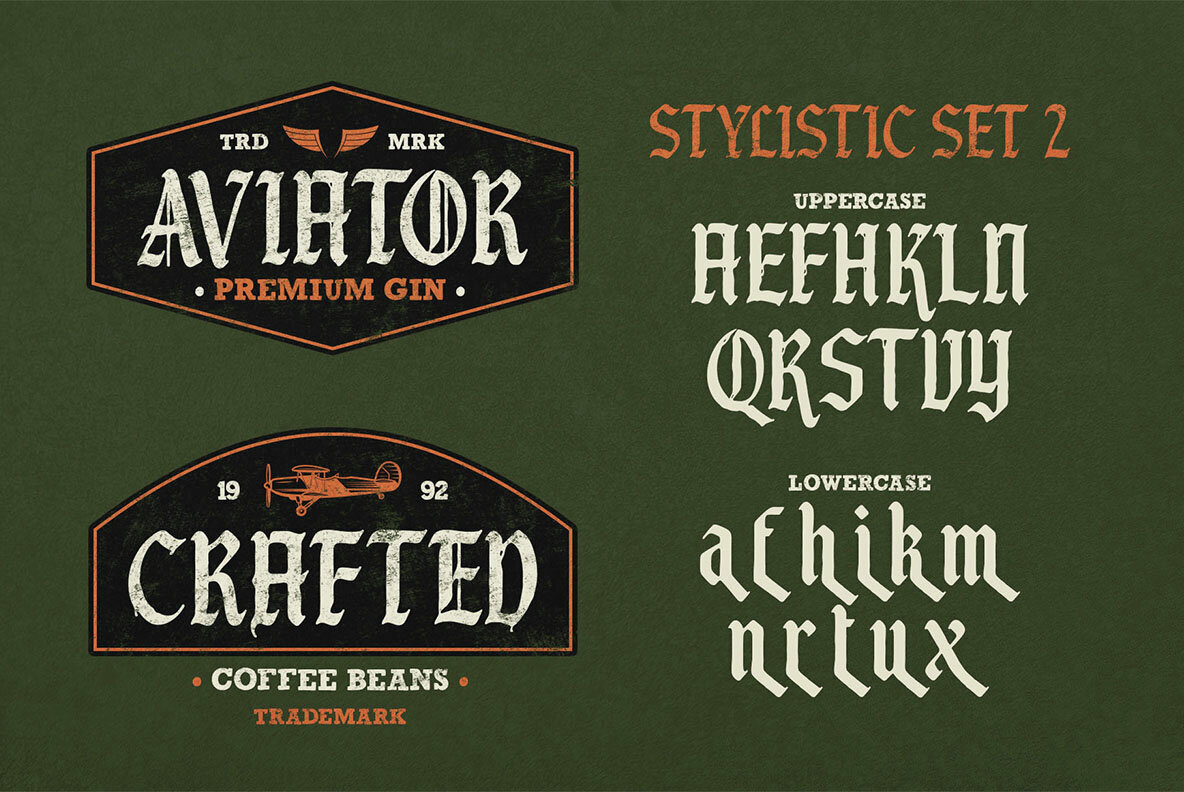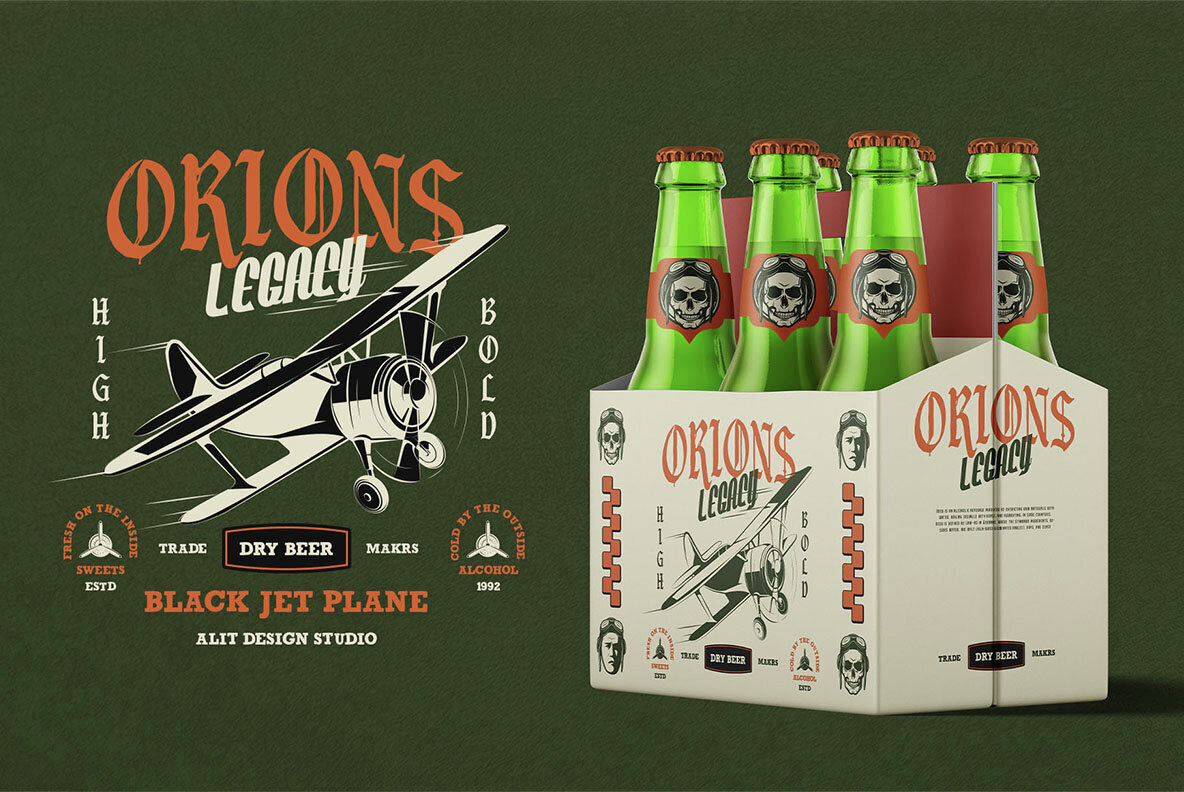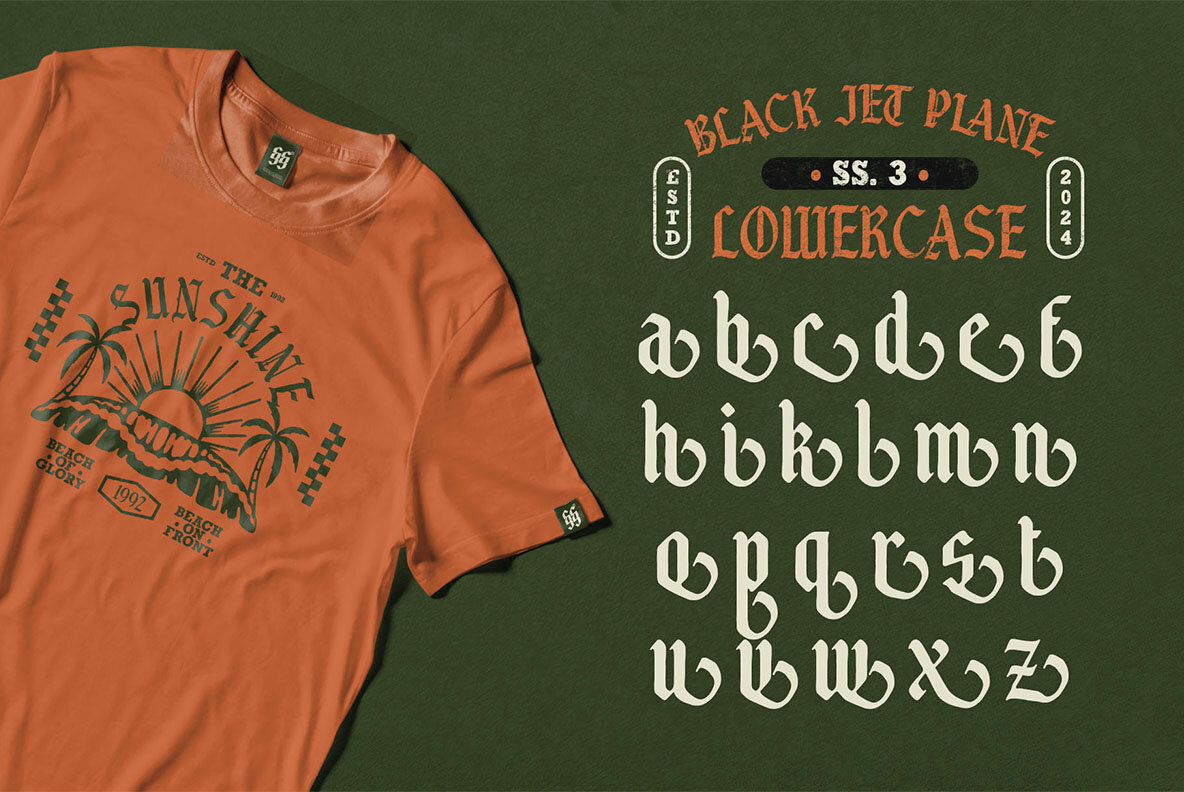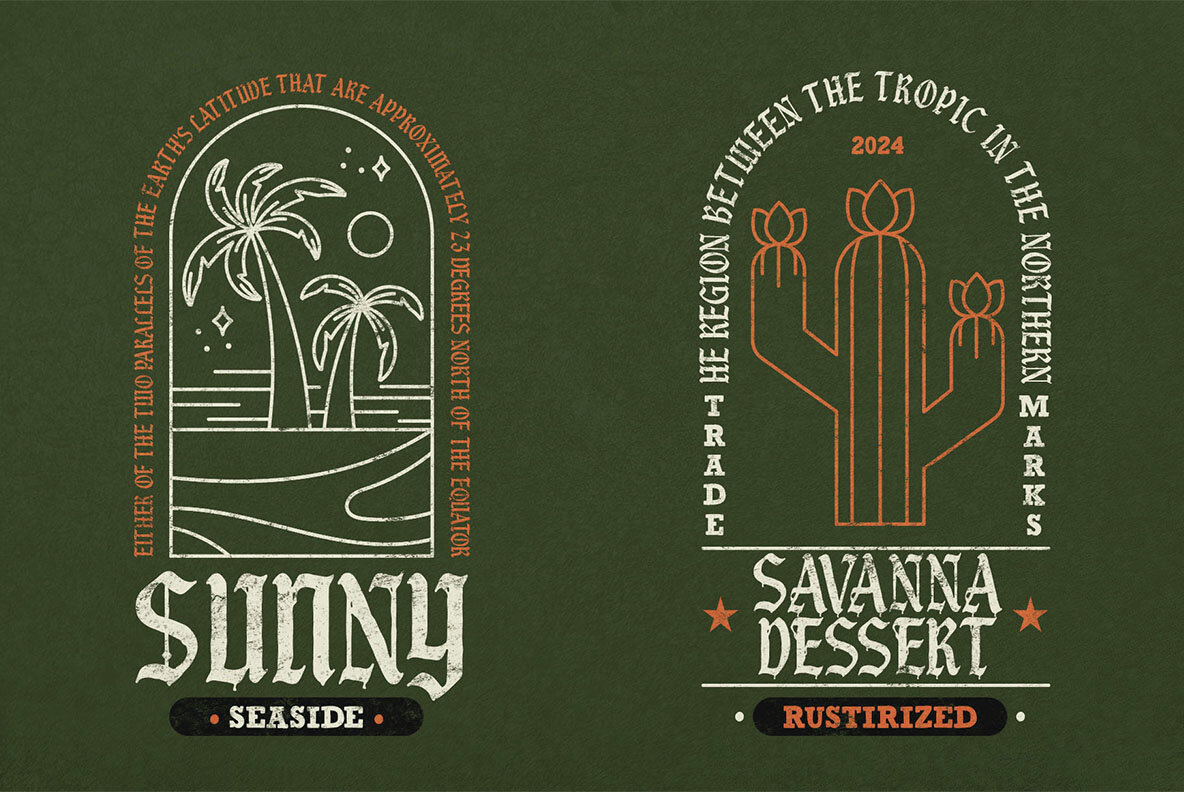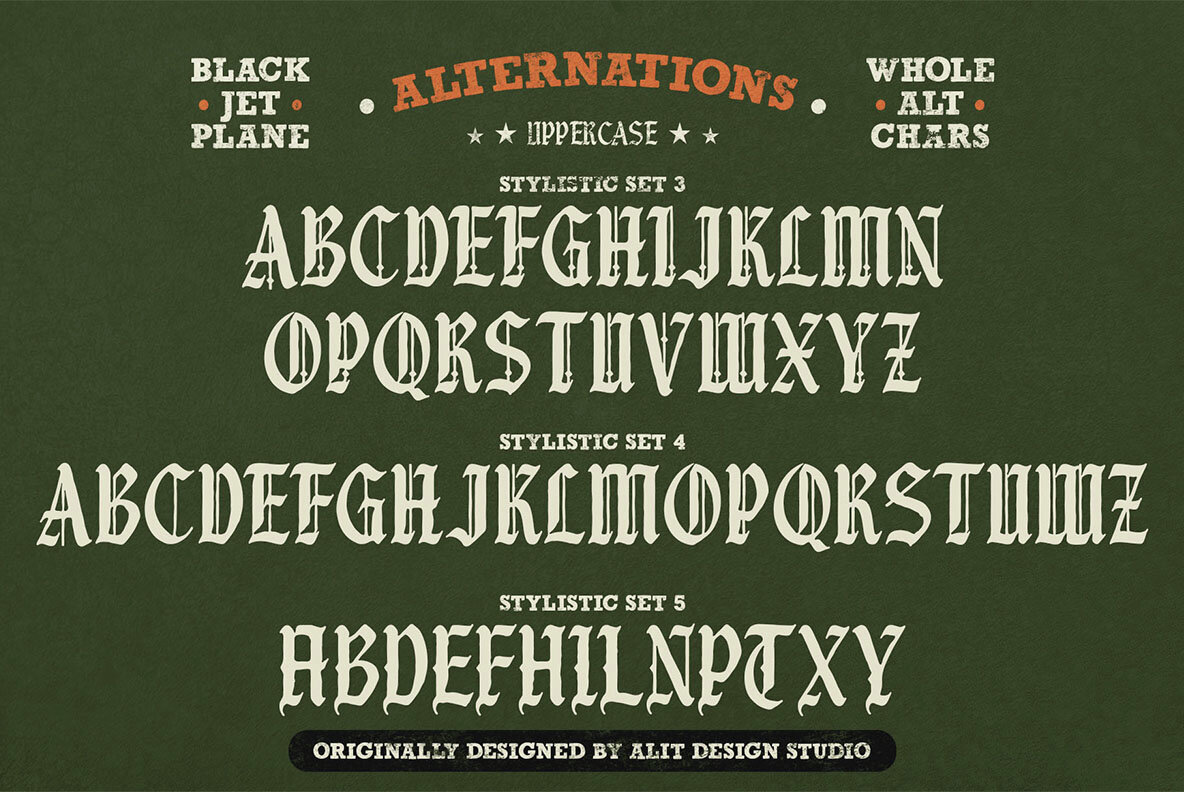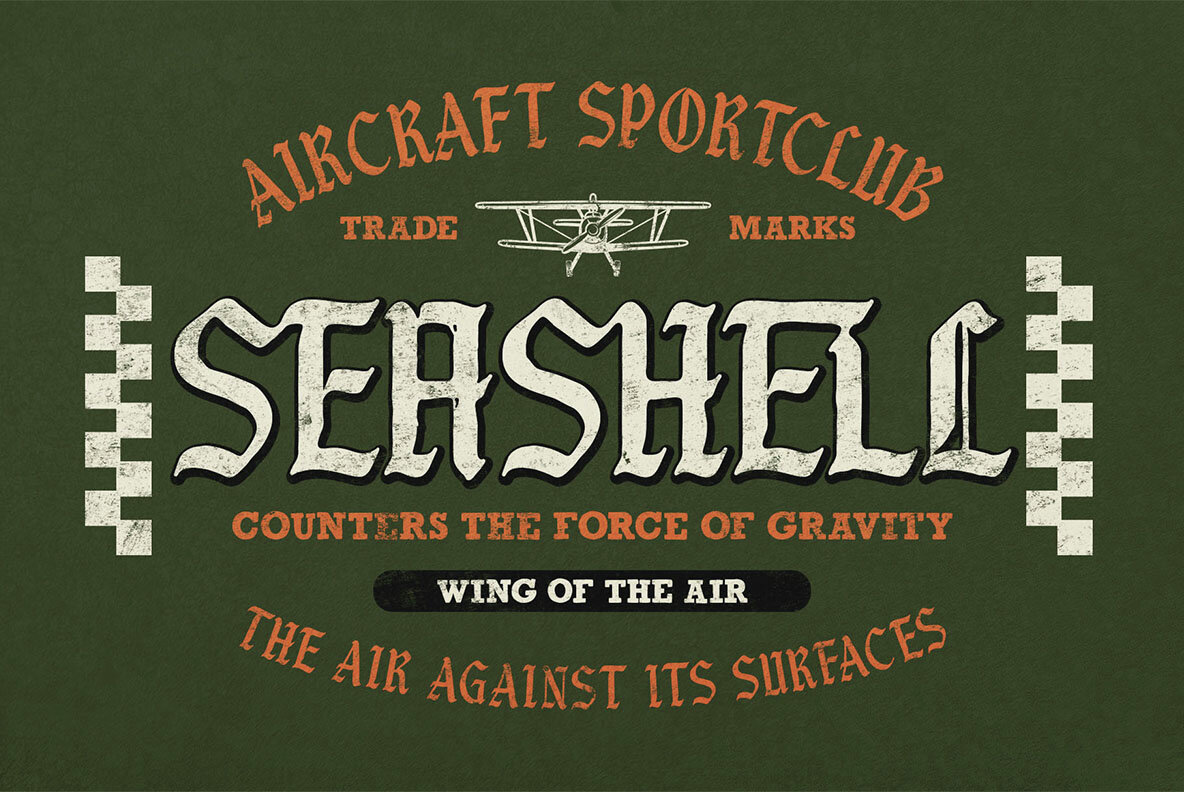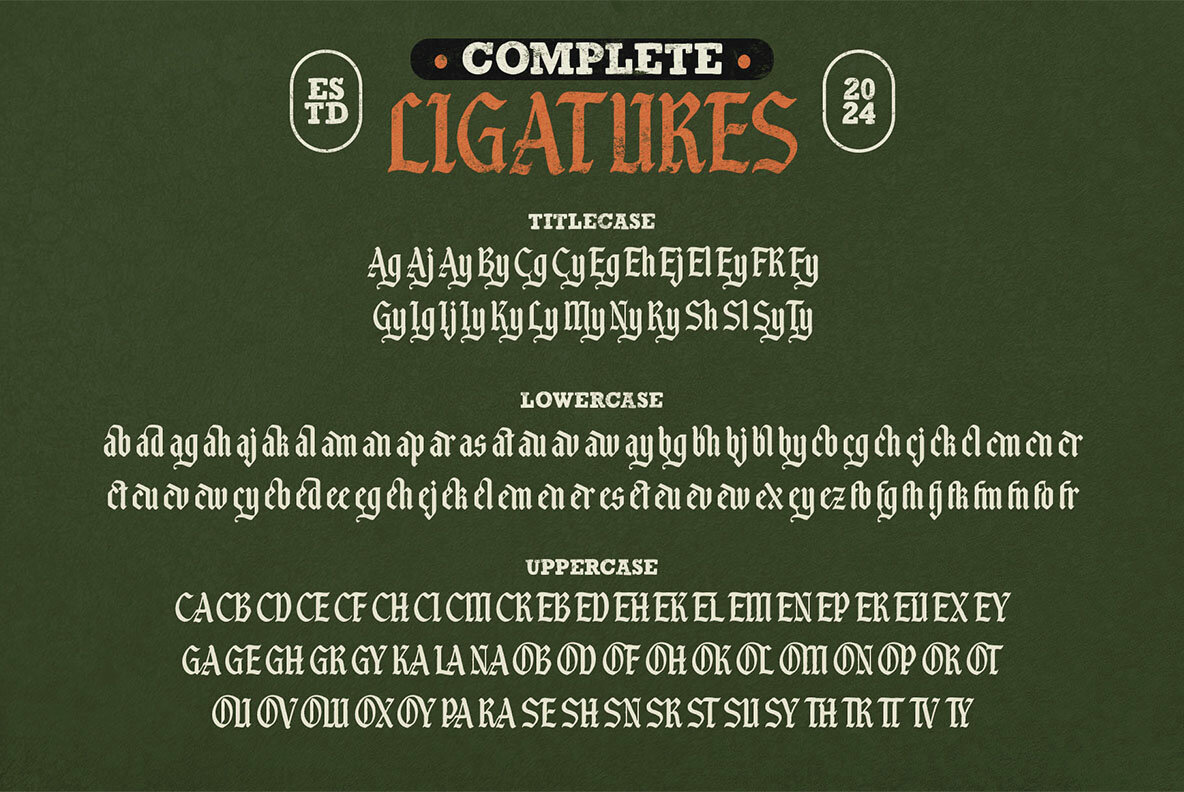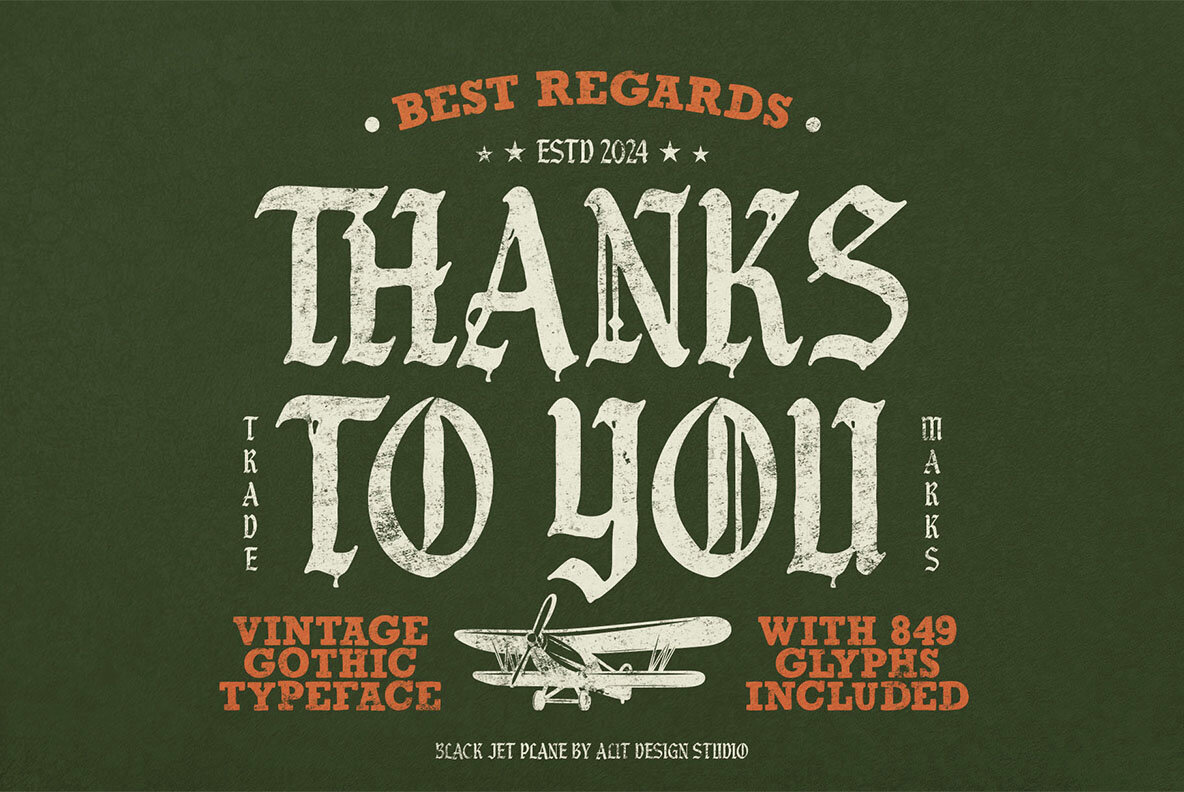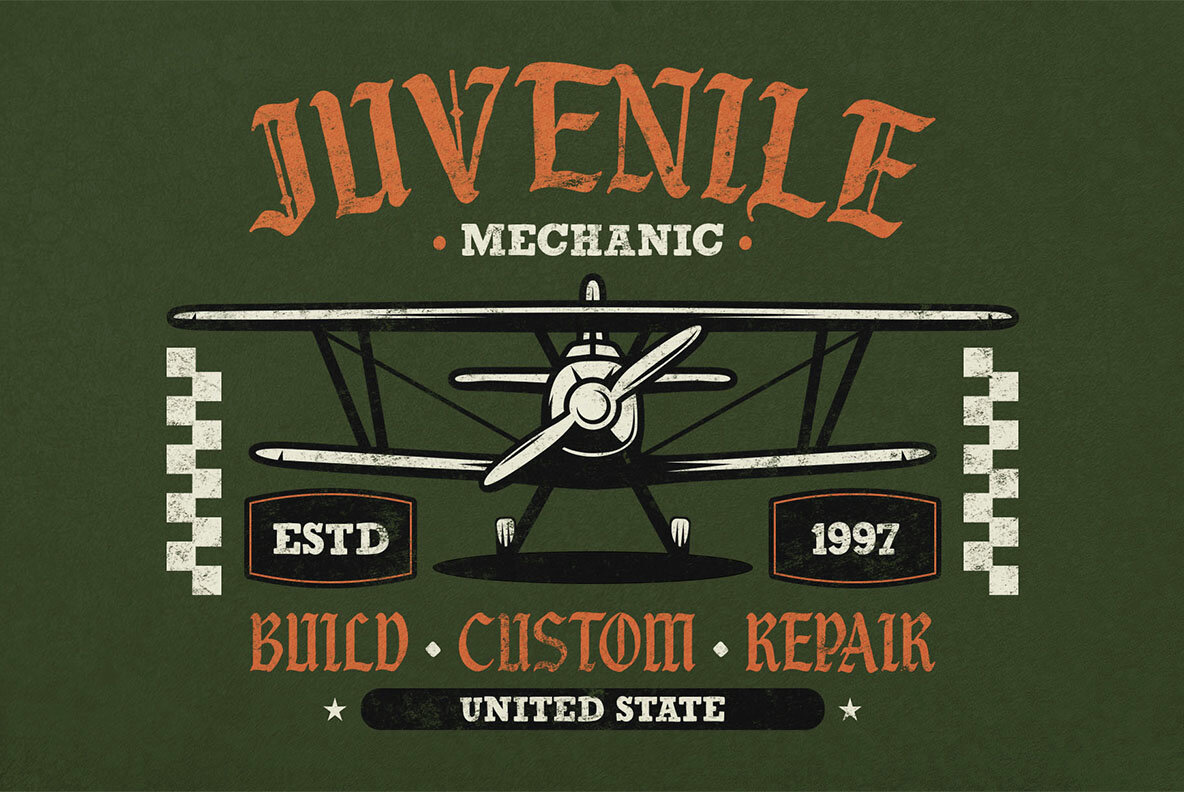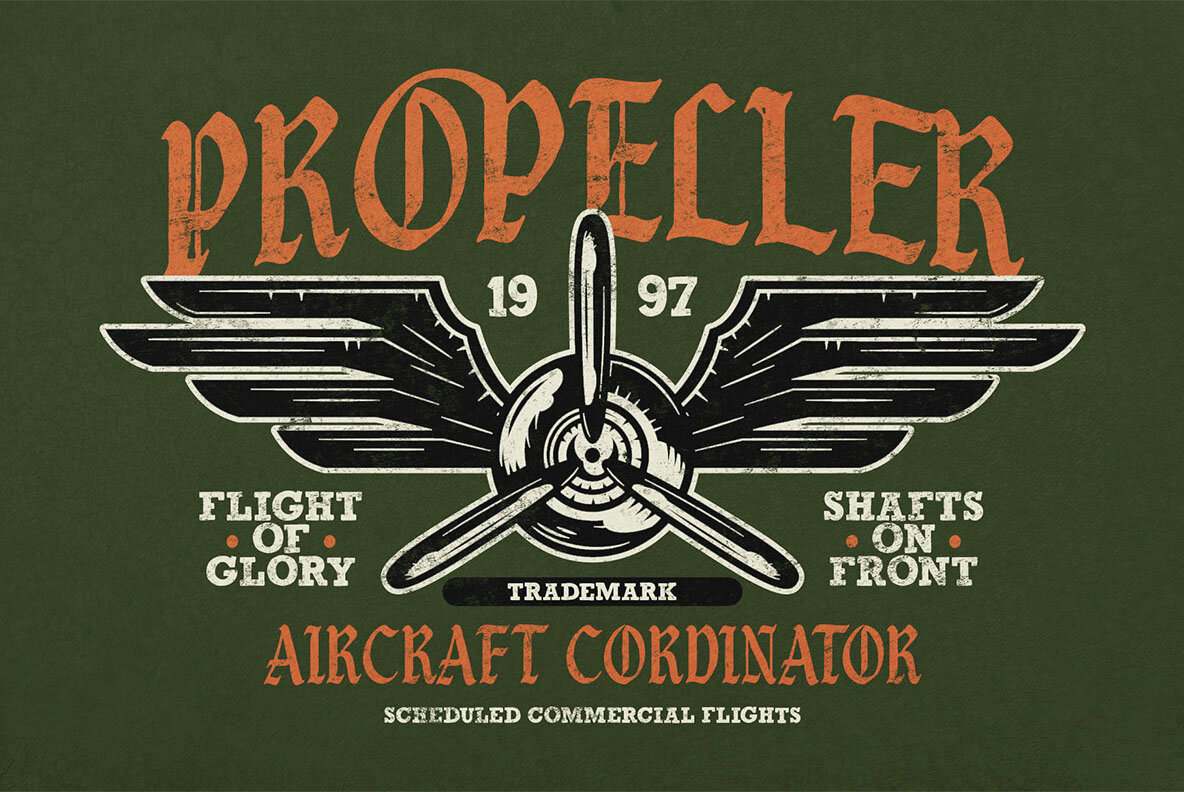
Black Jet Plane Font
Black Jet Plane Regular
Elevate your designs with the Black Jet Plane Typeface, a bold and powerful blackletter font that embodies the rugged charm of vintage aesthetics. Crafted with precision and character, this typeface is perfect for creating striking headlines, logos, posters, and more. Features: Bring the bold, rough, and vintage spirit of Black Jet Plane into your next design project and watch your creations take flight!